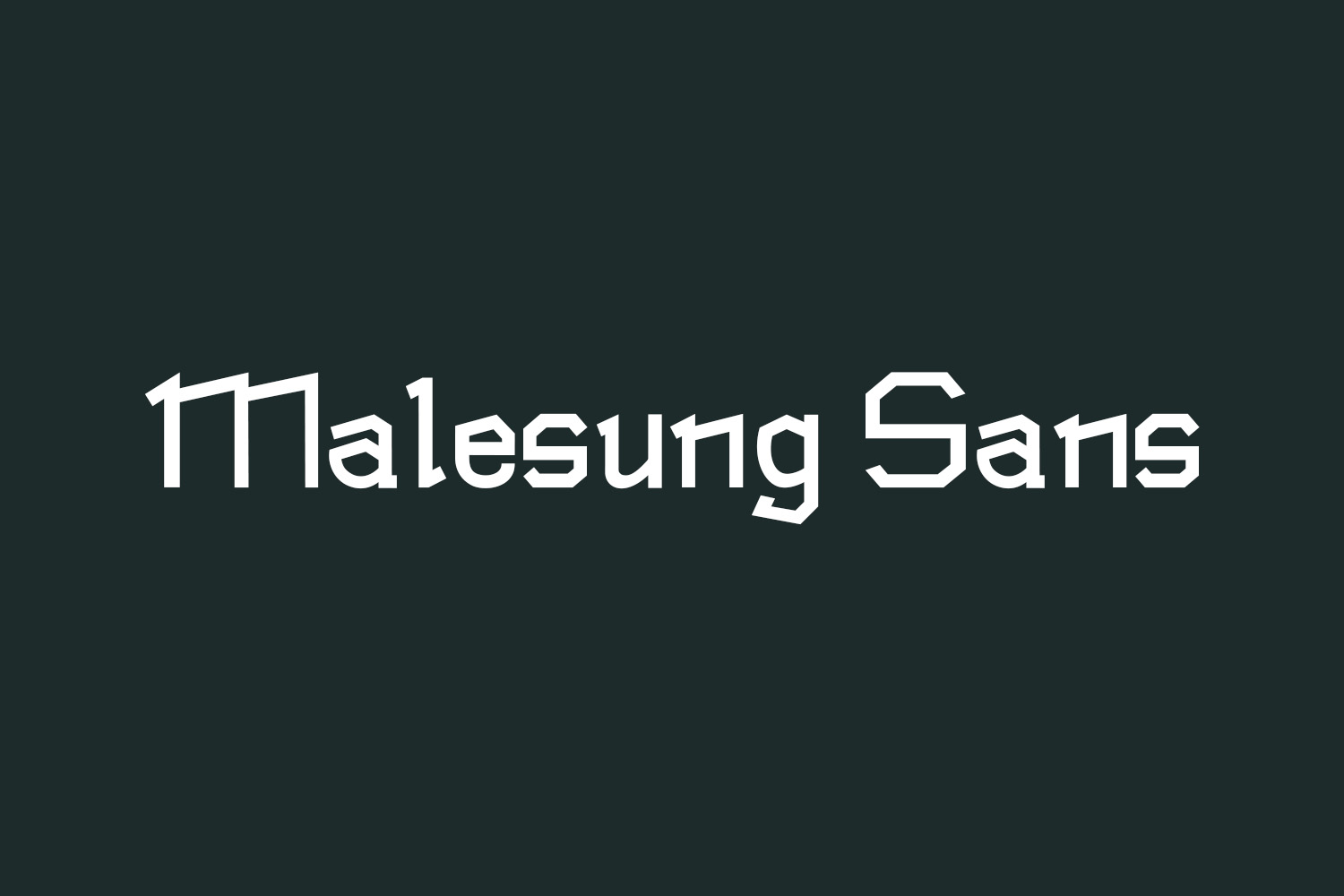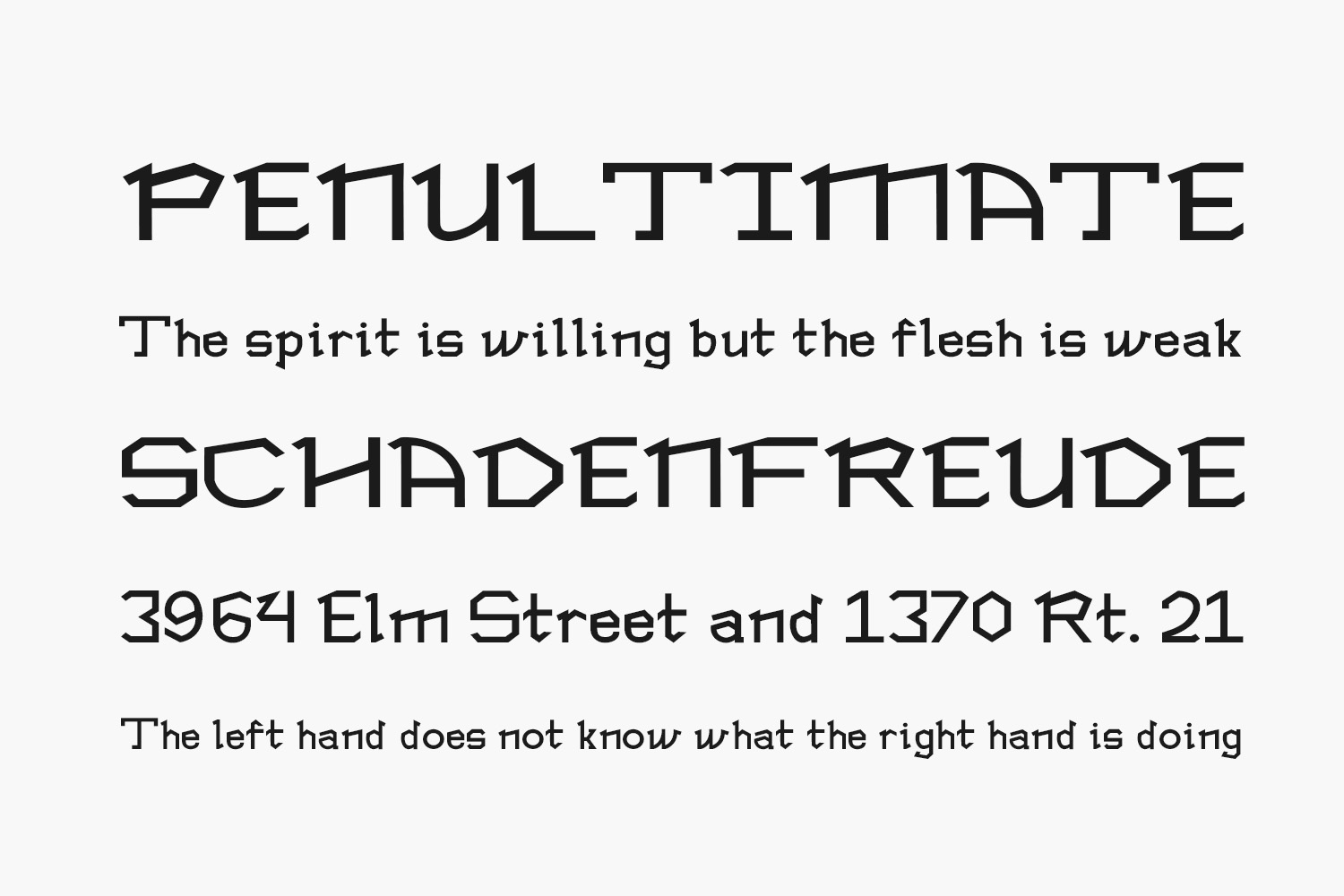
Malesung Sans Free Font is a modern Latin alphabet adaptation of the Minahasa (North Sulawesi, Indonesia) local alphabet. Malesung Sans Free Font was designed by Laura and is free for personal use only. Please purchase the full version for commercial use.
Designed by Laura